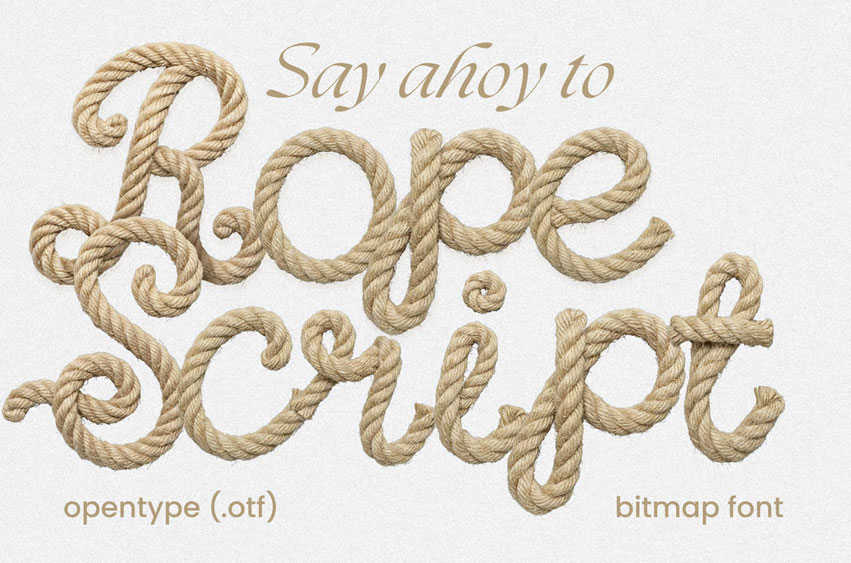
Rope Script Font
Rope Script Font is perfect for designers looking to add seaside character, rustic charm, or adventurous spirit to their work. Whether you’re working on beach-themed branding, sailing graphics, or handcrafted product labels, this font delivers unmistakable coastal personality.
• Beach cafés & coastal restaurants
• Nautical-themed bars & breweries
• Outdoor adventure gear
• Sailing clubs & regattas
• Travel agency seaside promotions
• Beach vacation ads